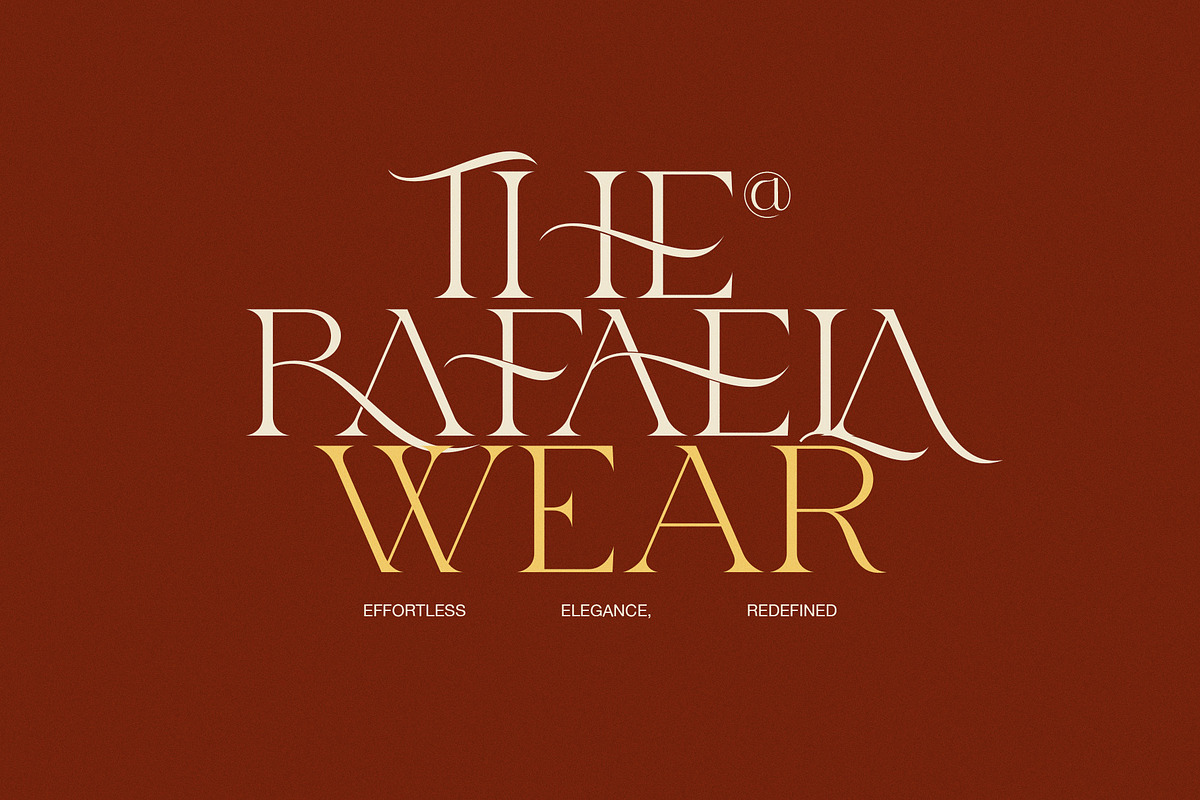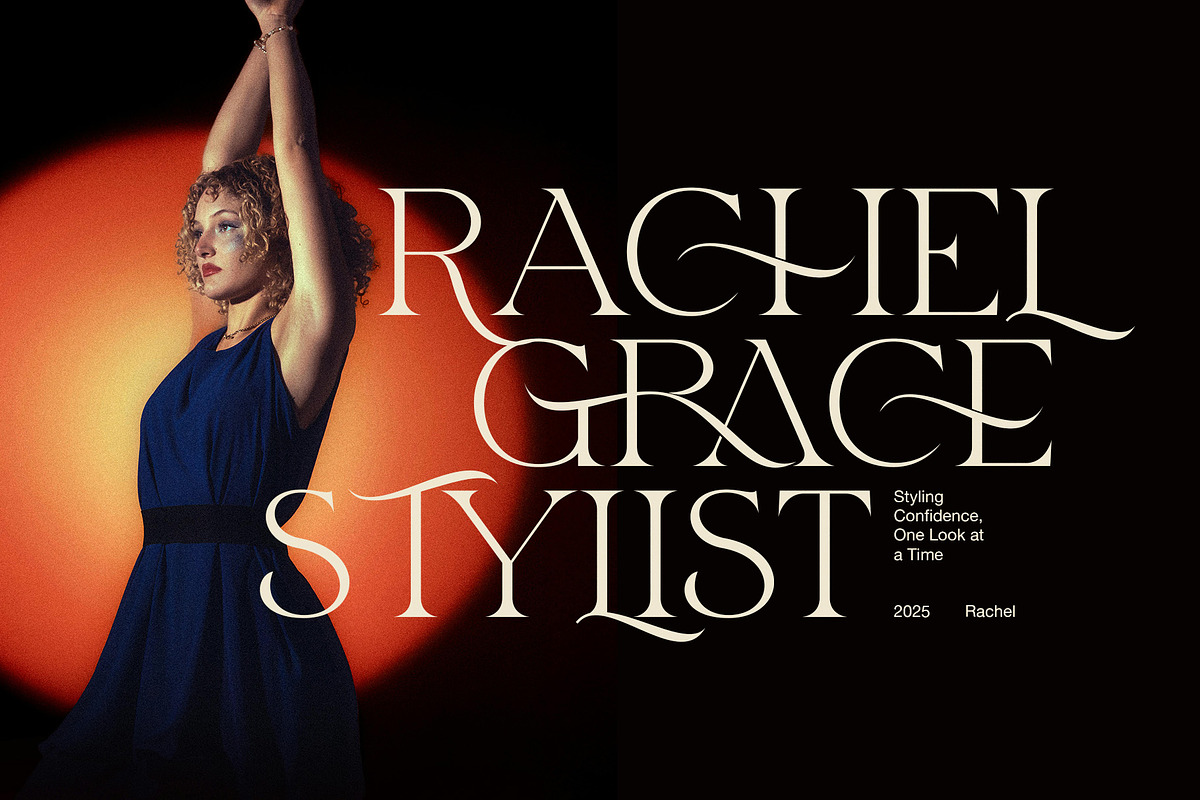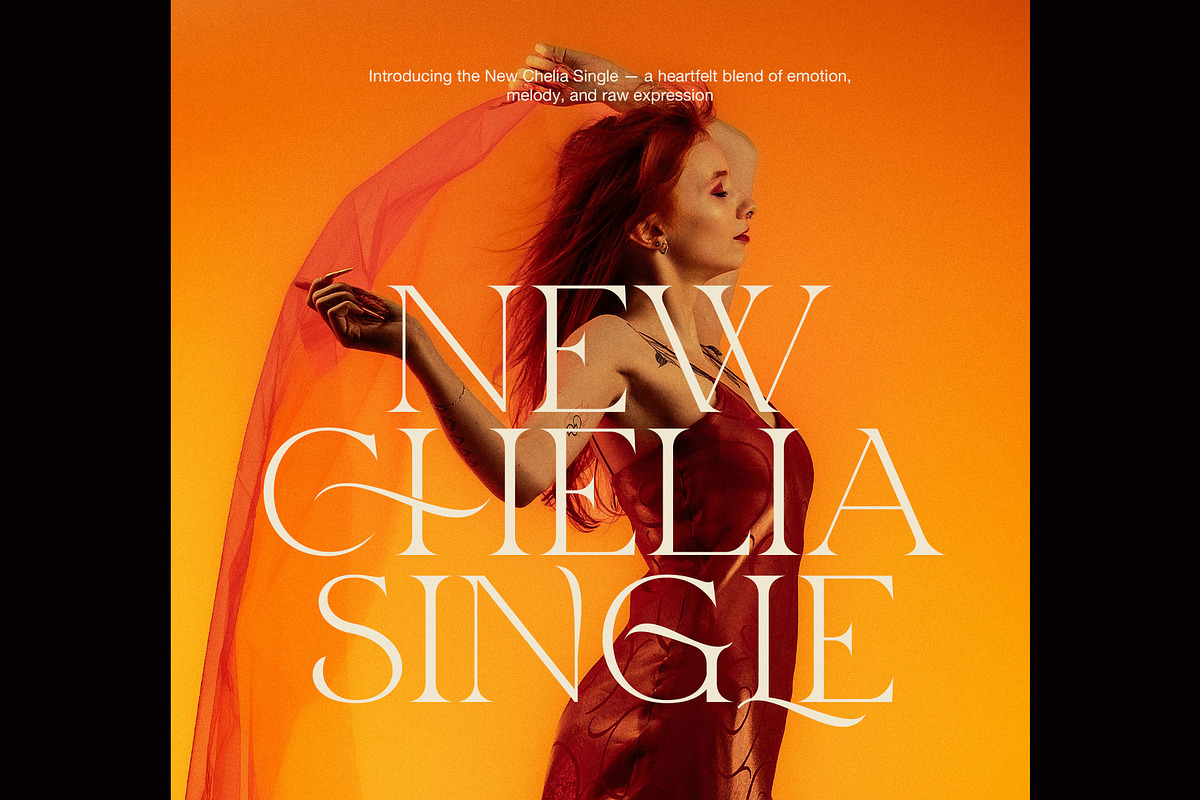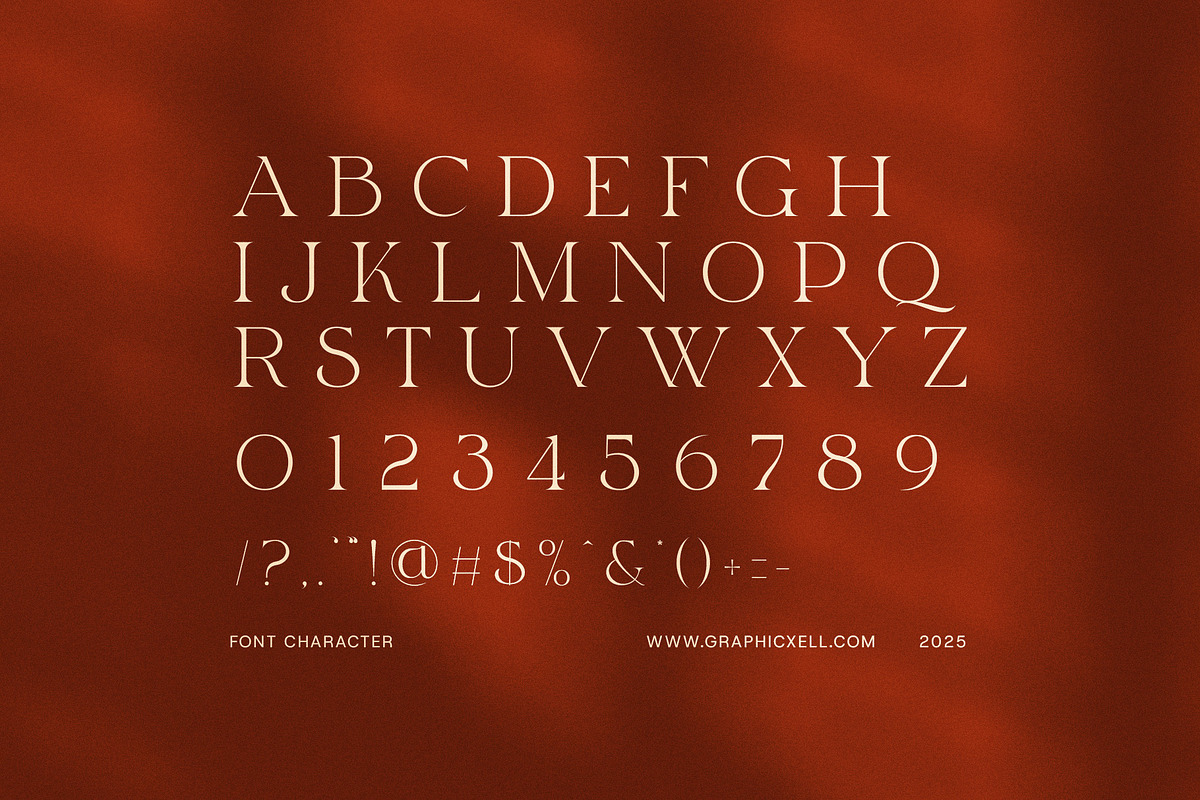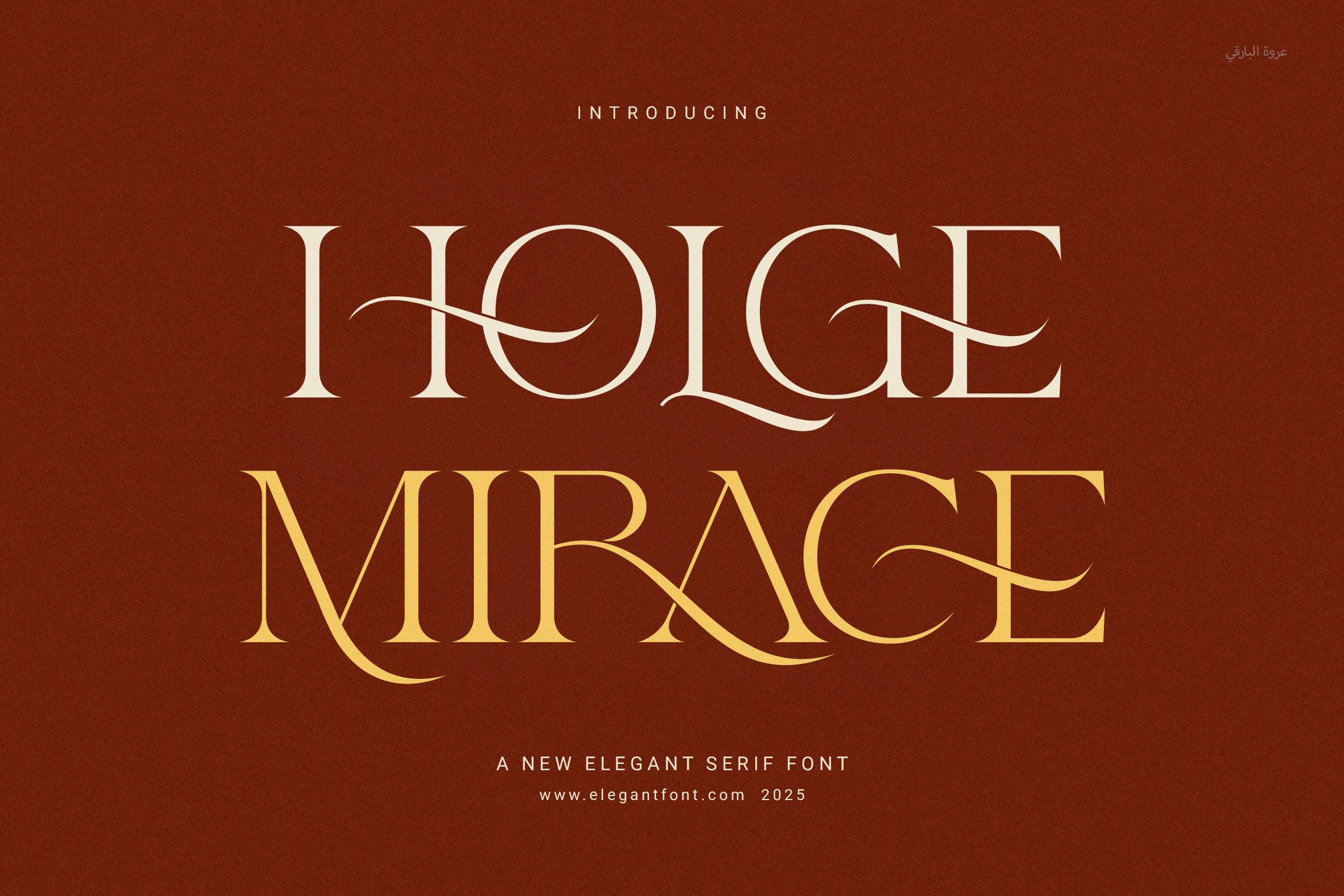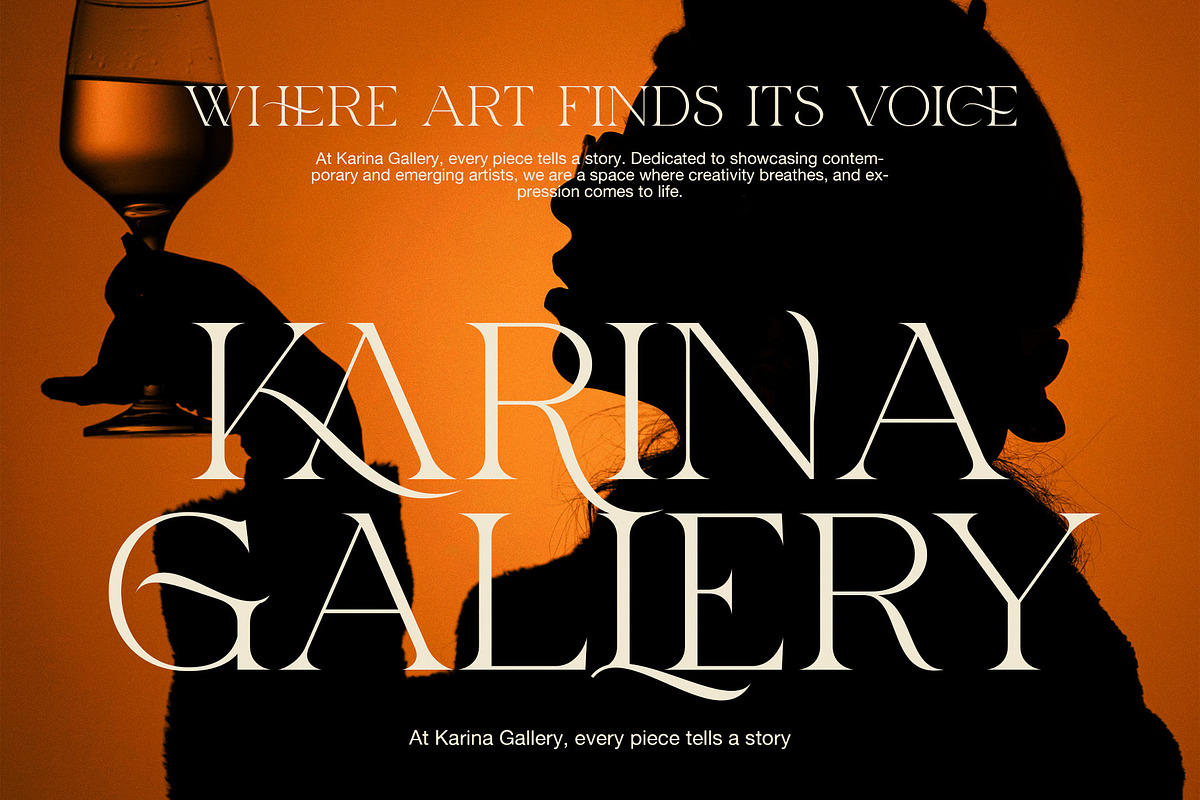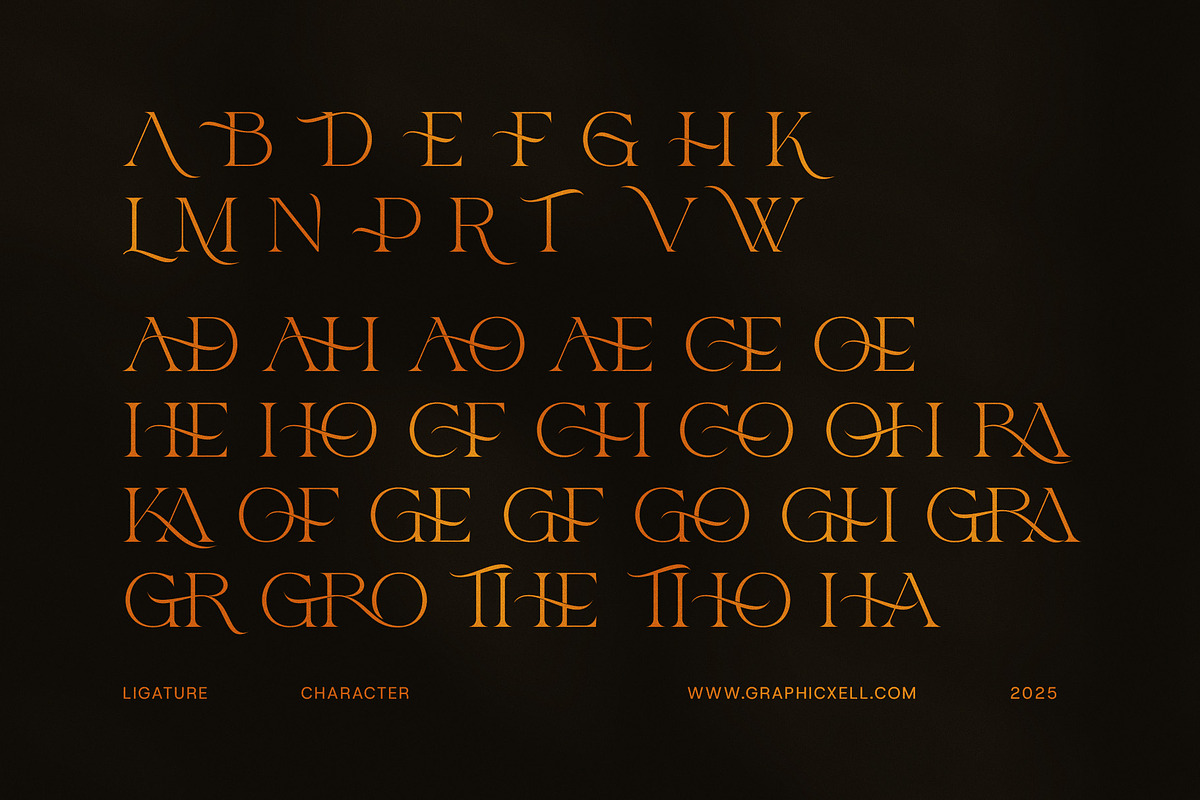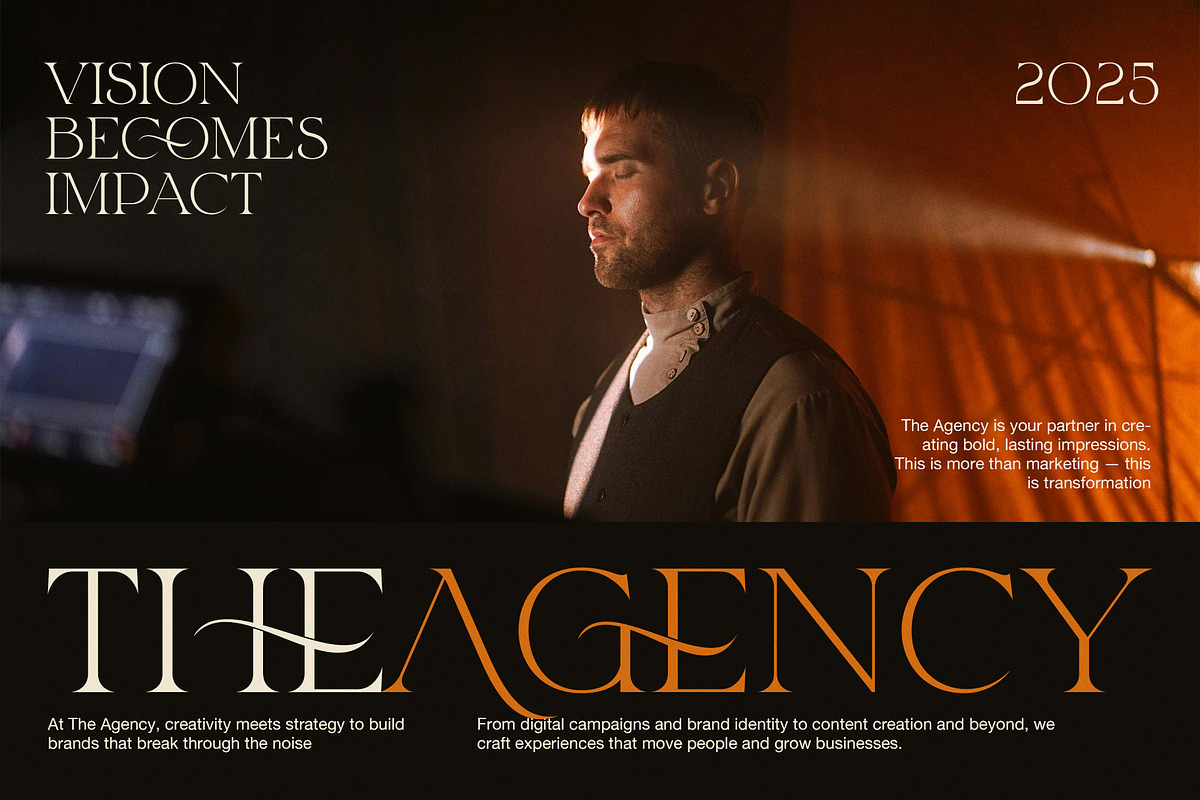
Gandis Elegant Serif Font
Gandis Elegant Serif Font is a stylish typeface that blends classic charm with a fresh, modern feel. Designed to be clean and timeless, this serif font works beautifully across a wide range of creative projects. Whether you're designing a logo, building a brand identity, or creating product packaging, Gandis helps your message look refined and professional.
The font features soft curves, balanced shapes, and consistent spacing. As a result, it offers strong readability both online and in print. In addition, Gandis includes a set of elegant ligatures. These add a natural flow to your text while also making your designs more unique and attractive.
Moreover, this font is easy to pair with both serif and sans-serif typefaces, which gives you more flexibility in layout and style. You can use it confidently for editorial design, websites, advertising, or social media graphics. It’s especially ideal for fashion, beauty, boutique brands, restaurants, and luxury goods.
Why Designers Love Gandis:
Elegant serif style with a modern twist
Smooth, professional ligatures included
High readability at any size or format
Perfect for logos, branding, and product packaging
Works great for fashion, beauty, and editorial projects
So, if you're looking for a clean serif font that blends elegance with function, Gandis is the right fit. Try it today and bring a sophisticated touch to your next design.